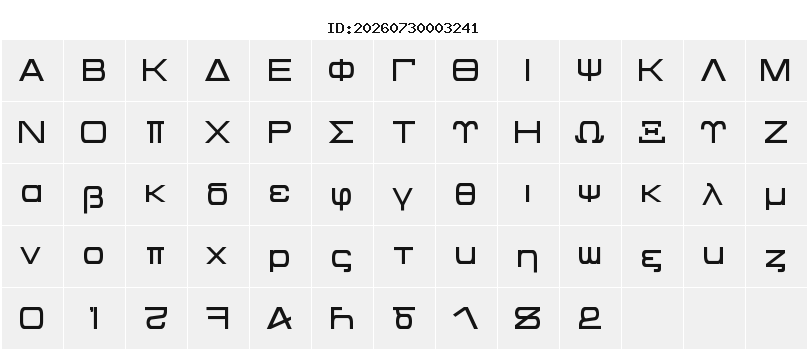
Kentaurus Preview
• Font Name: Kentaurus
• Full Font Name: Kentaurus
• Designer: Neale Davidson
About Kentaurus.ttf
Kentaurus.ttf is a modern, elegant sans-serif font designed for ultimate readability and visual harmony. Perfect for branding, headlines, web design, and print materials.